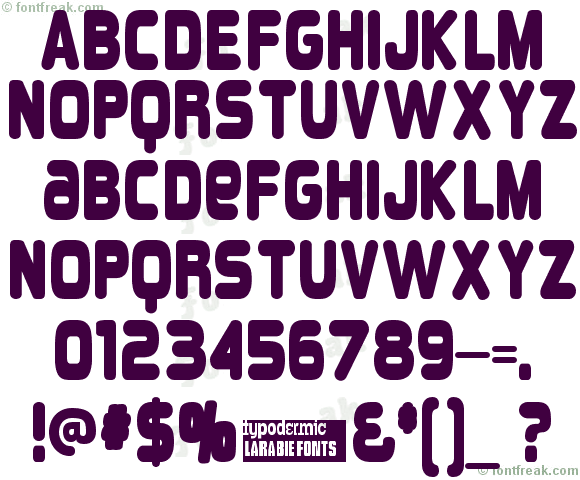
Overload
The Overload font by Ray Larabie is a striking display typeface that commands attention with its bold and contemporary style. Released in 1998 and updated in 2004, this freeware font is characterized by its geometric forms and robust stroke weight, which contribute to a strong visual presence. The letters exhibit a clean, sans-serif aesthetic, featuring a minimal contrast in thickness that enhances readability while maintaining an impactful look. The generous spacing between characters adds to its modern appeal, making it ideal for various design applications.
Overload font is particularly well-suited for use cases such as movie posters, where bold headlines are essential for capturing the audience's attention. It also shines in branding projects, helping small businesses create memorable logos that stand out in a crowded marketplace. Additionally, the font works beautifully for promotional materials, event flyers, and website headers, where clarity and style are paramount. Graphic designers and content creators will find Overload to be a versatile choice that complements a wide range of projects, from casual to formal.
What sets the Overload font apart is its unique blend of simplicity and strength. Its ability to convey messages with both clarity and flair makes it an excellent option for those looking to make a statement. Its modern design allows it to fit seamlessly into various visual contexts, ensuring that it remains relevant and appealing in today’s design landscape. For those interested in incorporating this eye-catching typeface into their projects, an Overload font free download is readily available, allowing you to explore its potential without any cost. Whether for personal or commercial use, Overload is a font that delivers both style and functionality.